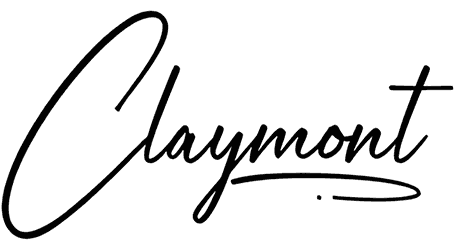
Claymont Font
Timeless, delicate, and dynamic would be the words we could find for describing a marvelous script font such as Claymont, which comes with a cursive style and angular characters.
Due to its unique form, this handwritten font can easily boost the visibility of your visual content, including logos, merchandise, stationery, branding, or social media posts. Aside from the lack of numbers and good readability, this masterpiece can really boost the quality of your work.